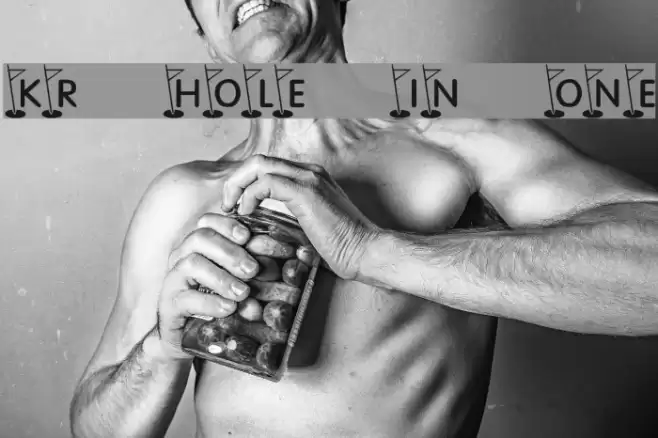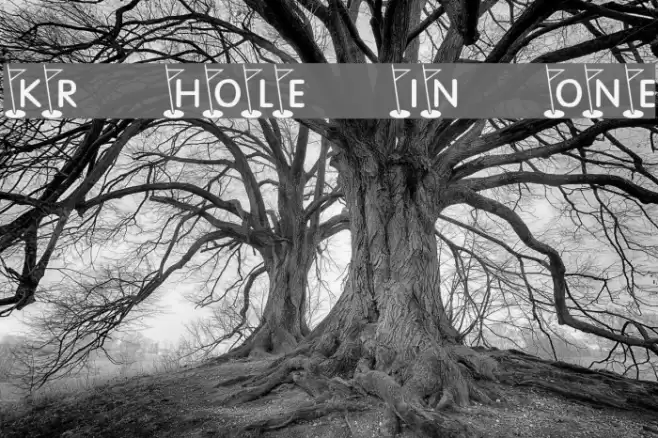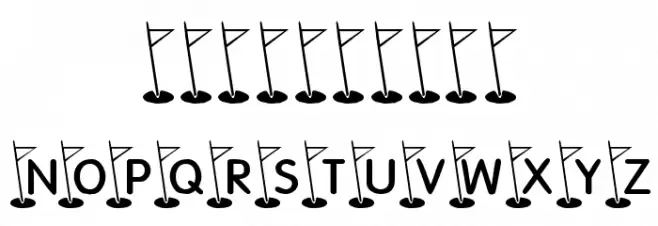
KR Hole In One! Font
KR Hole In One! Description
This playful and unique font features uppercase letters designed to resemble golf flags, each letter standing on a small base that mimics a golf hole. The flagpole extends from the top of each character, adding a whimsical touch. The overall design is bold and eye-catching, making it ideal for projects that require a sporty or leisure theme. The font's distinctive style makes it suitable for creative and informal applications, where a sense of fun and novelty is desired.
A playful, golf-themed decorative font with flagpole accents from Uncategorized fonts.
- Proposed Projects: Ideal for sports-themed posters, golf event invitations, playful branding, and novelty merchandise.